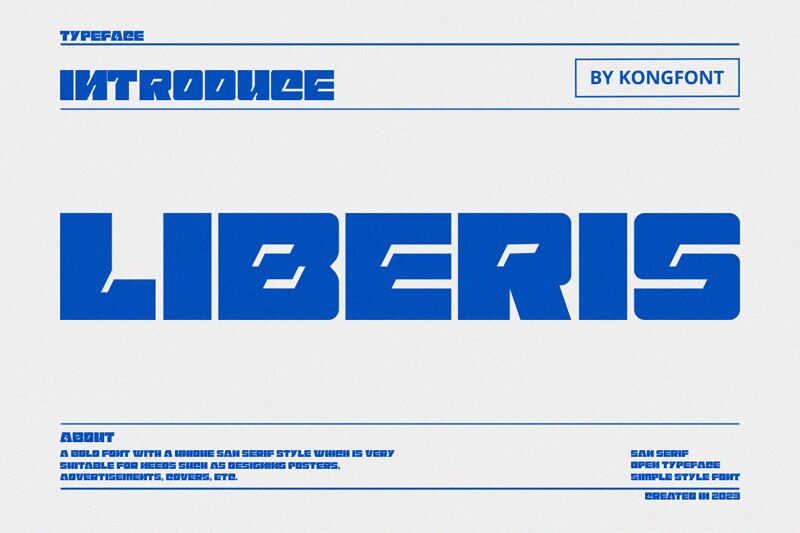
Liberis font by Kong Font is a free techno font with a futuristic geometric style and a strong presence. It features a simplistic style with clean lines and a hint of Art Deco influence, resulting in a pleasant feel. With an industrial style and a modern design, try it out for your upcoming design projects.
Liberis is widely applicable in futuristic designs, industrial projects, music band album covers, art magazines, gaming applications, game logos, posters, or books. This typeface fits multiple other occasions as well.